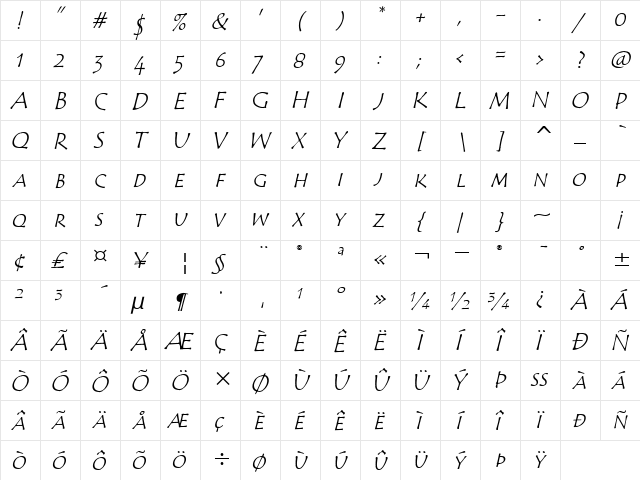
TempusSansSCITC BoldItalic Font Preview
TempusSansSCITC BoldItalic
Design Context for TempusSansSCITC Typeface
TempusSansSCITC is a composed and adaptable typeface that performs quietly and consistently across a wide range of design contexts. The dynamic lean of this cut emphasises speed and emphasis in any layout. Its bold stroke weight gives it real presence on the page.